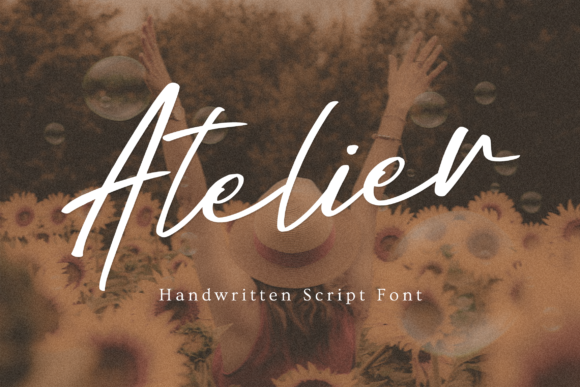
The Designer’s Delight: Atelier Font
I still remember the frustration of working on a project, hours pouring into finding the perfect font, only to end up with something that just didn’t feel right. My client was asking for a relaxed yet elegant look, and I was stuck. That’s when I stumbled upon Atelier, a beautiful handwritten font that instantly elevated my design. If you’re a designer, crafter, or creative hobbyist looking for a versatile font to add to your library, you’re in the right place.
An Honest Review of Atelier Font
What I Love About Atelier ✨
- ✅ Relaxed and Neat: Atelier strikes the perfect balance between being laid-back and polished, making it suitable for a wide range of projects.
- ✅ Versatile: Whether you’re working on a branding project, a craft tutorial, or a personal blog, Atelier adapts seamlessly.
- ✅ Elegant yet Approachable: This font has a unique charm that makes it both sophisticated and friendly.
- ✅ Easy to Read: Atelier’s clear and clean letterforms ensure that your text is always legible, even at smaller sizes.
While Atelier is an excellent font, there are a few minor considerations to keep in mind:
- ⚠️ Not Ideal for Body Text: Due to its elegant and somewhat decorative nature, Atelier might not be the best choice for long blocks of body text. It’s perfect for headings, titles, and short paragraphs, though!
- ⚠️ Limited Use in Formal Contexts: While versatile, Atelier’s relaxed vibe might not suit very formal or traditional projects, such as academic papers or corporate reports.
- Make the most of OpenType features, such as glyphs and stylistic alternates, to add variety to your text.
The Story Behind Atelier Font
Atelier was created with the goal of bringing a sense of calm and elegance to typography. Inspired by the beauty of handwritten notes and the simplicity of modern design, Atelier aims to be a versatile tool for creatives. Whether you’re designing a logo, a website, or a craft project, Atelier’s friendly yet sophisticated vibe makes it an excellent choice.
Q: Is Atelier suitable for branding projects?
A: Absolutely! Atelier’s unique blend of elegance and approachability makes it perfect for branding, especially for businesses that want to convey a friendly and sophisticated image.
Q: Does Atelier support OpenType features?
A: Yes, Atelier includes OpenType features such as glyphs and stylistic alternates, allowing you to customize your text and add creative touches.
Q: Is Atelier easy to read?
A: Yes, Atelier is designed to be clear and legible, making it suitable for both headings and short paragraphs.